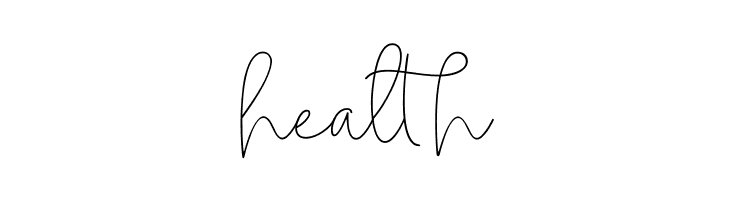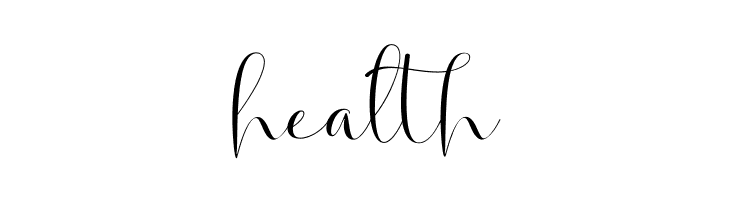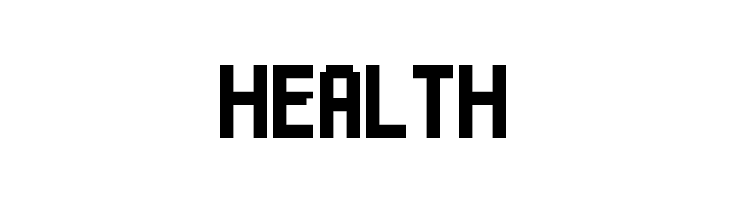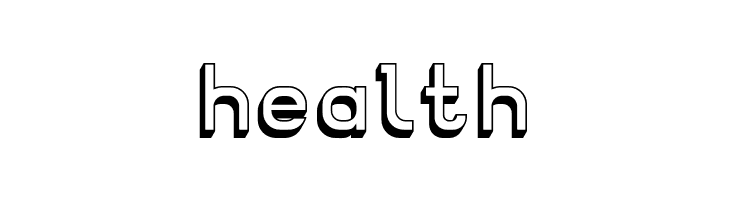
A bold, 3D sans-serif font with a modern and impactful style.
An elegant, flowing script font with high contrast and intricate letterforms.
A delicate monoline script font with a flowing, handwritten style.
A bold, geometric sans-serif font with a modern and clean style.
A playful, hand-drawn style font with tall, narrow letterforms.
An elegant, flowing script font with thin, delicate strokes and a handwritten appearance.
A bold, pixelated font with a retro, digital aesthetic.
A modern, geometric sans-serif font with a clean and bold appearance.
A bold, modern font with geometric shapes and rounded edges.
A bold, italic font with a modern and dynamic style.